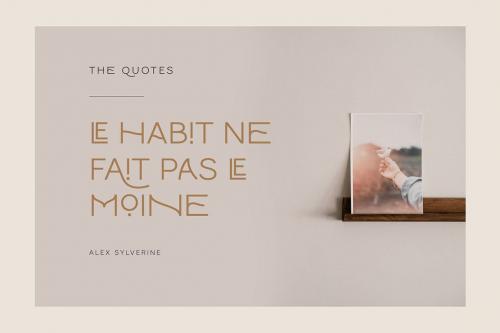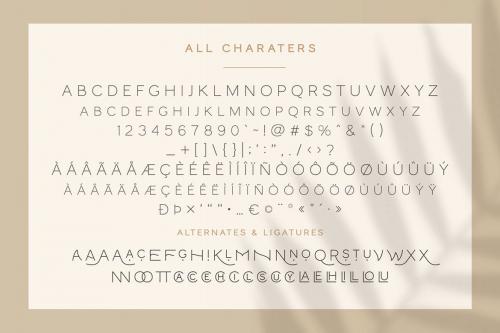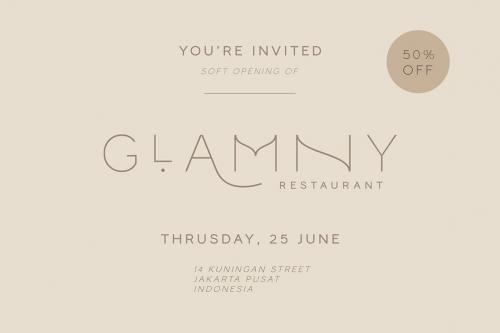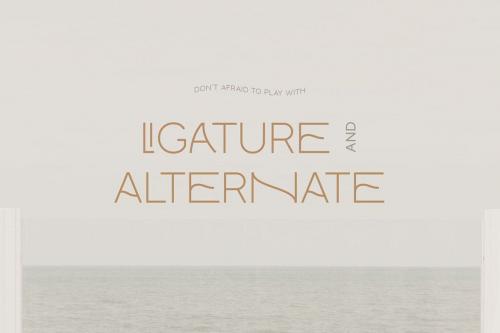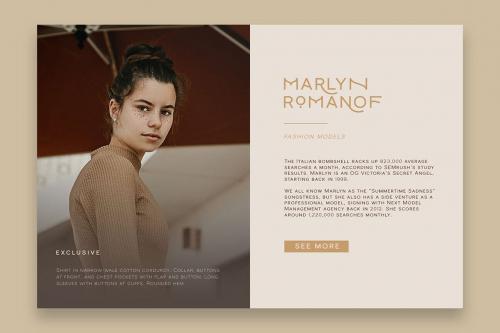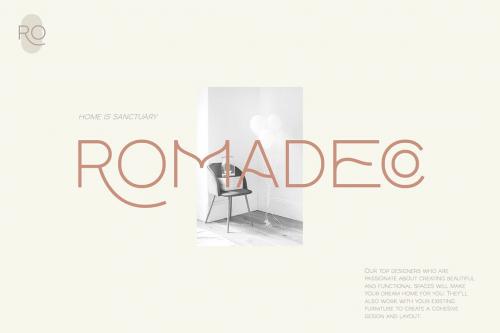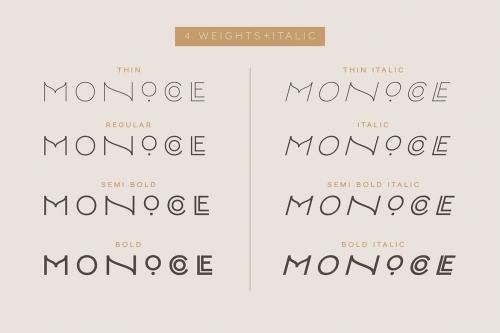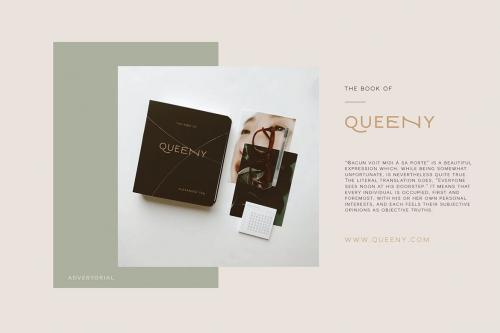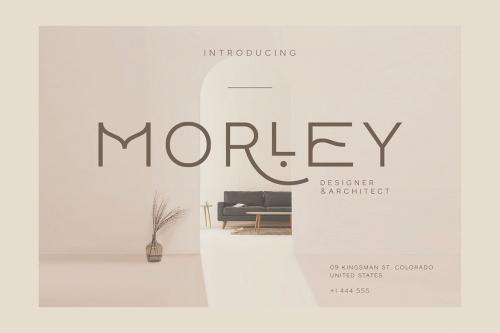
Monocole - Playful Sans Serif is a modern sans serif font family whose design refers us to the style of modern sans serif. The distinctive features of Monocole - Playful Sans Serif are the relatively low contrast of strokes, the slightly squarish shapes of round characters and the emphasized business like simplicity.
Monocole - Playful Sans Serif features an original stylistic set which, when turned on, adds features of typical pointed-pen sans serif to some of the lowercase characters. In addition, Monocole - Playful Sans Serif has small capitals for Latin and as well as several interesting ligatures.
**Features :**
- All Caps Font
- Standard & Special Ligatures (NN OO TT Ca Cc Ce CH Ci Cl Cs Cu Cy La Le Lh Li Ll Lo Lu)
- Special Alternates (A A A A A C E F G H I J K L M N N N O Q R S T U V W X X)
- Accents (Multilingual characters) AÀÁÂÃÄÅCÇDÐEÈÉÊËIÌÍÎÏNÑOØÒÓÔÕÖUÙÜÚÛWYÝŸỲŸÆŒßÞþ